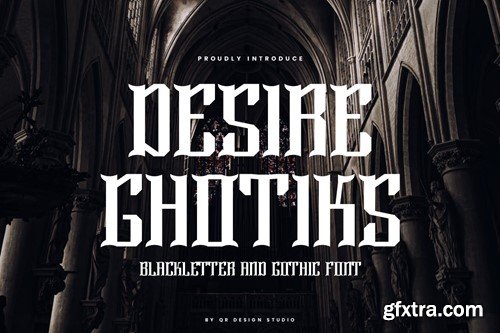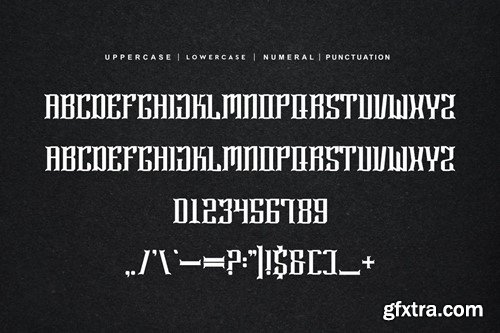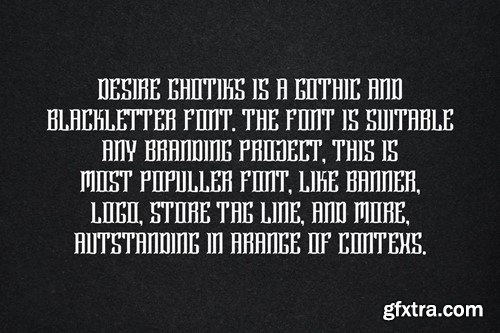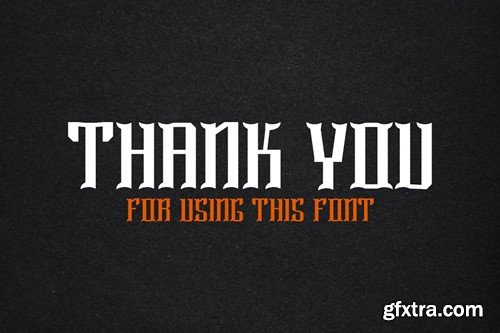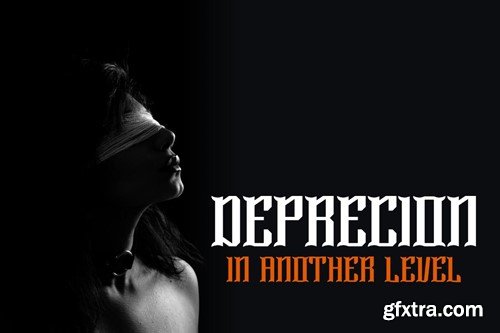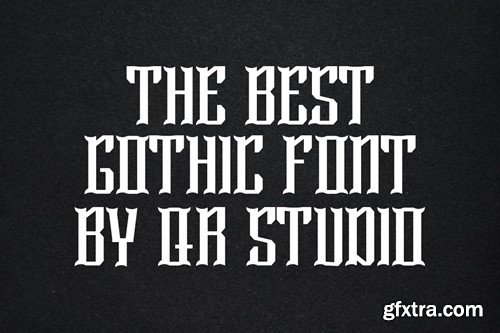
迪斯耐哥希提克 - 黑体与Artdeco字体YDRPDRZ
Desire Ghotiks - Blackletter & Artdeco Font YDRPDRZ
Desire Ghotiks - Blackletter & Artdeco Font
Desire Ghotiks - Blackletter & Artdeco Font is a bold and authentic display font. The font is suitable for any branding project like poster, logo, sport, and many more. Outstanding in a wide range of contexts.